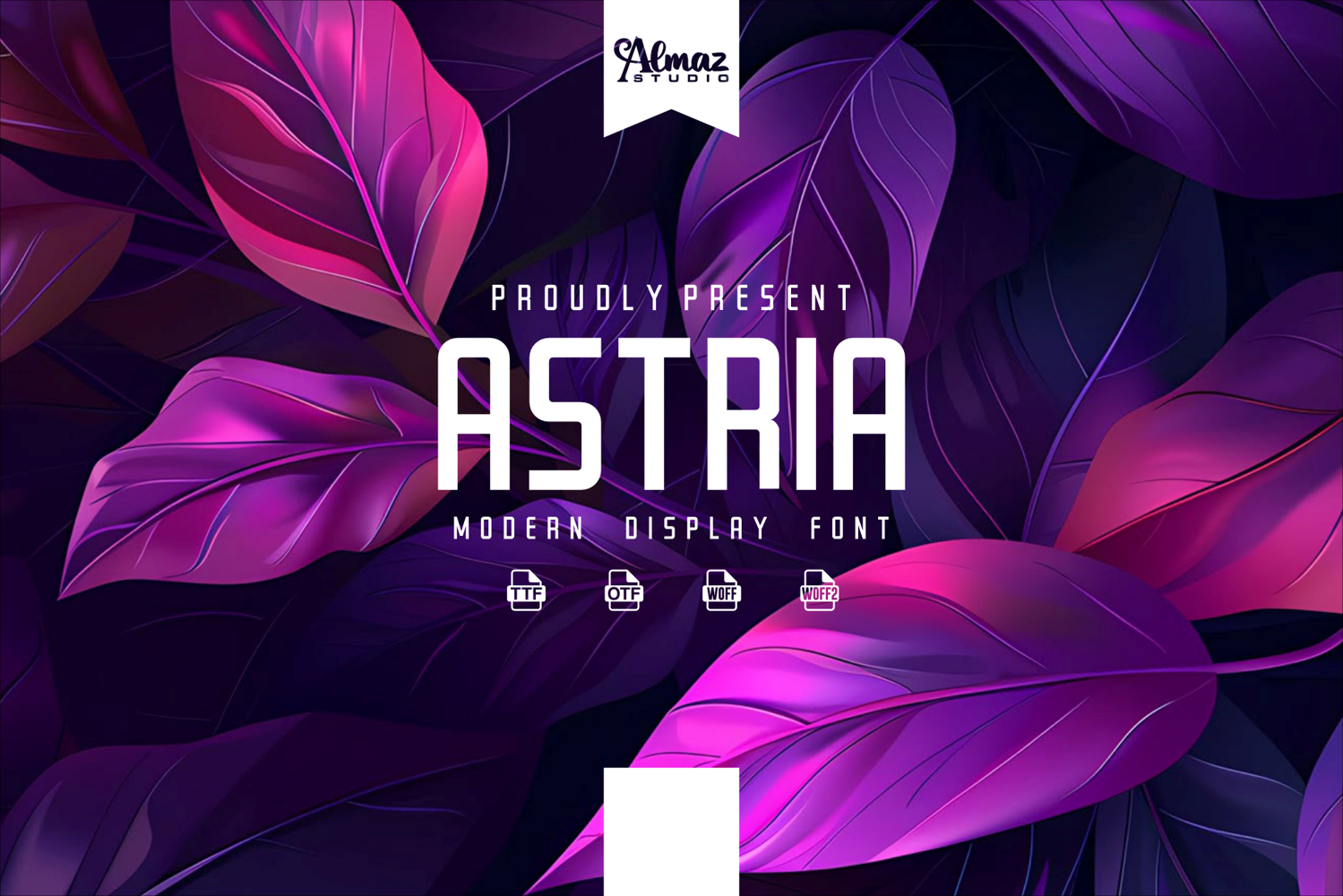
Astria
Astria is a modern display font with a bold, elegant, and futuristic aesthetic. It features tall letterforms, clean lines, and sharp yet refined edges that create a strong visual impact while maintaining a sophisticated look. The font balances modern minimalism with a distinctive display character, making it stand out in contemporary designs.
Astria is ideal for branding, fashion, technology, editorial headlines, posters, logos, advertising, and creative visual projects. Its striking structure and stylish presence make it perfect for designs that require attention, confidence, and a modern identity.